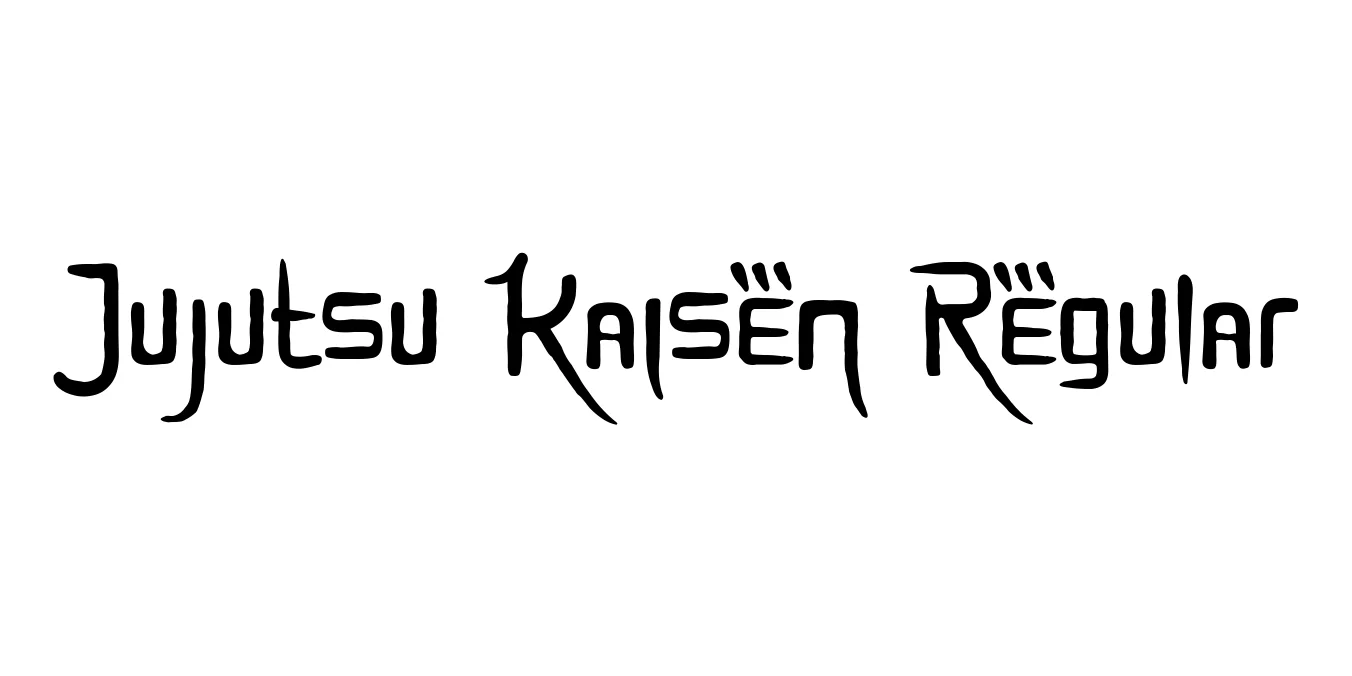
Jujutsu Kaisen Regular
Designed by Koki Design
| Font Name | Jujutsu Kaisen |
| Category | Display Brush |
| Designer | Koki Design |
| Similar Fonts | Edo SZ, Brush Strike, Shoguns Clan, Horai |
The Jujutsu Kaisen Regular font is a high-impact, brush-style typeface inspired by the iconic visual identity of the world-renowned manga and anime series created by Gege Akutami. This font meticulously replicates the aggressive, hand-drawn calligraphic strokes seen in the series' logo, capturing the dark fantasy and supernatural energy inherent in the story of curses and sorcery.
Its rugged textures and bold, energetic letterforms are designed to stand out in display settings. Whether you are aiming for a traditional Japanese aesthetic or a modern action-oriented look, this typeface provides a sense of power and motion that is perfect for thematic projects involving shonen anime, martial arts, or dark mystery narratives.
Jujutsu Kaisen Regular Best Uses
Excellent for creating logos for anime-centric YouTube channels or niche fan brands.
Ideal for high-impact headers on manga-inspired flyers and event posters.
Perfect for eye-catching thumbnails and high-energy Instagram graphics.
Highly effective for custom t-shirt designs and fan-made apparel.